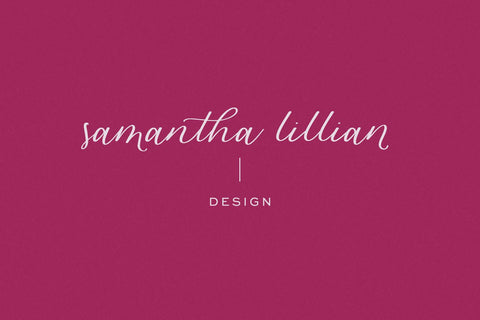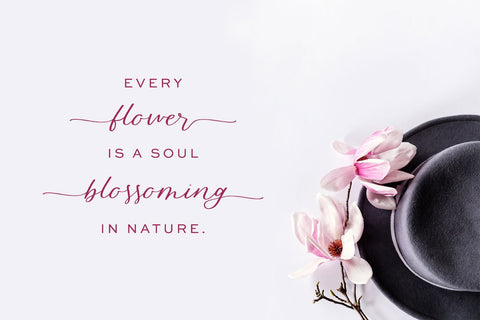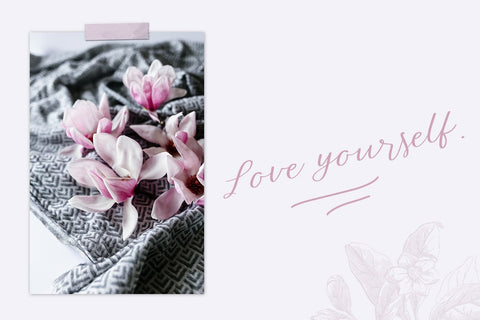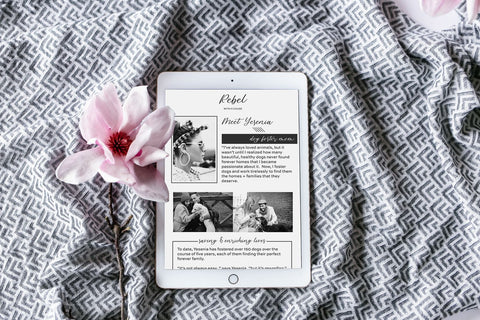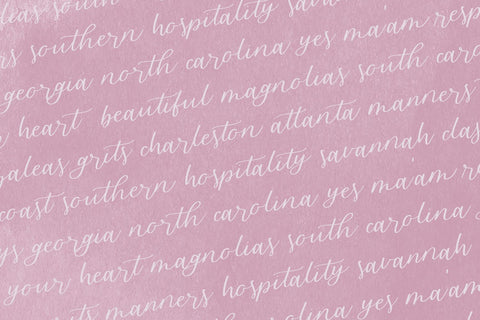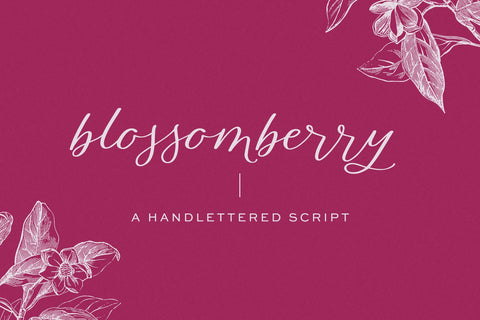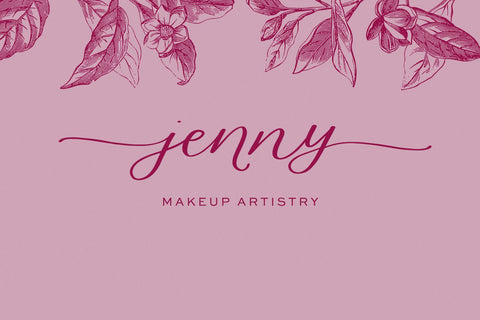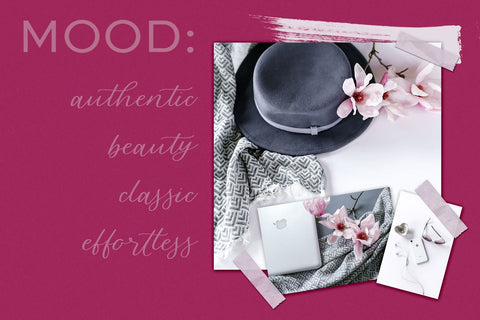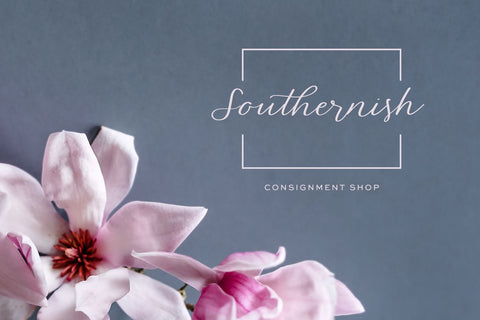
Blossomberry Script Font with Swashes
Introducing Blossomberry Script, a beautiful hand lettered script.  Blossomberry is a calligraphy font that features effortless, flowy characters, and a variety of alternate characters to dress up your project.  Legible, easy to read, and feminine, Blossomberry is incredibly versatile and works well for elegant projects, as well as modern projects.
Blossomberry Script is best for:
- clean print design, like magazines + flyers
- header elements that need a feminine touch
- logos + branding
- quote graphics for social media
Blossomberry Script includes:
- full upper + lowercase characters
- numbers + punctuation
- Western European Language Support
- 80 lowercase alternate characters including beautiful left & right swashes and common ligatures